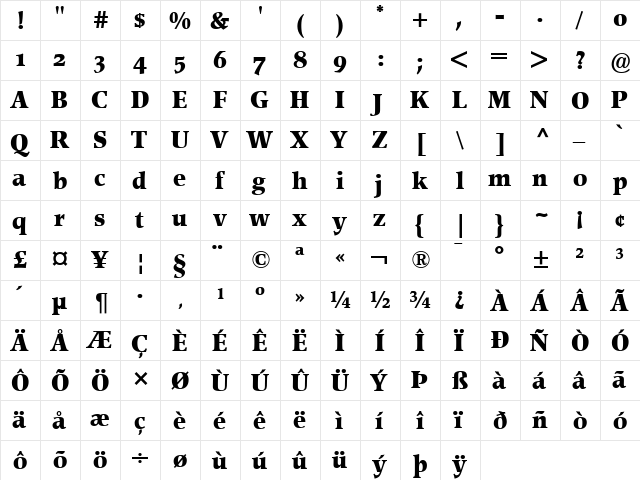
Poppl-Pontifex BE Regular
Design Context for Poppl-Pontifex BE Typeface
Poppl-Pontifex BE offers clean, dependable letterforms without strong stylistic allegiance, making it a practical choice for designers who need flexibility.
Pro Tip: Pair Poppl-Pontifex BE with a font of contrasting weight or personality to build a more expressive typographic hierarchy.